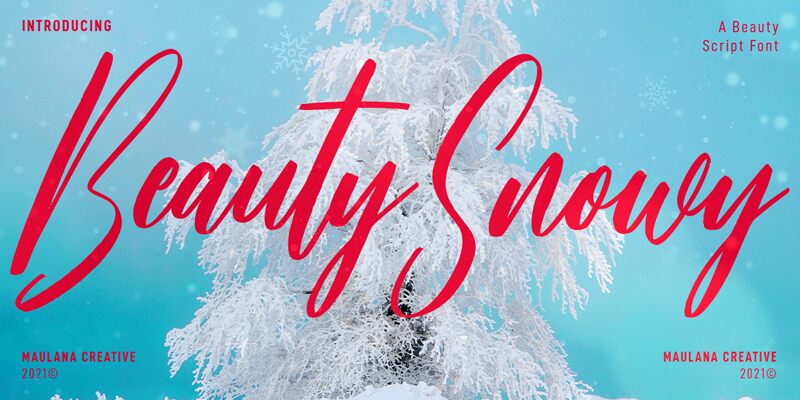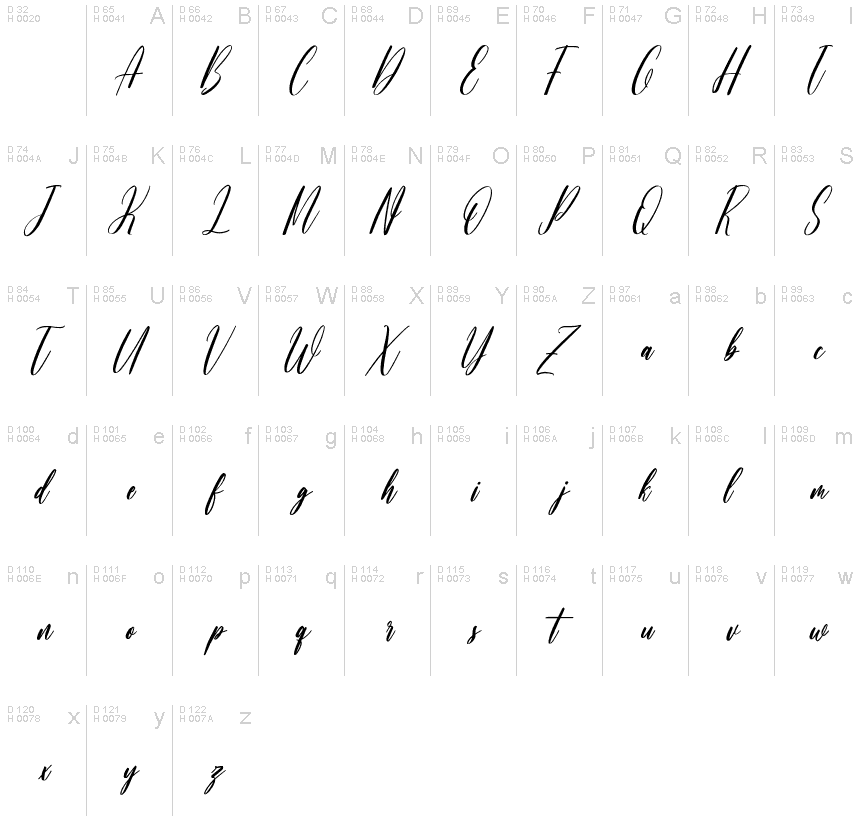
Beauty Snowy Free Regular
Beauty Snowy, the semi-light calligraphy font designed by Maulana Creative, exudes an air of elegance and sophistication. Its extra-condensed width adds a touch of modernity to its traditional calligraphic style, making it suitable for a variety of projects. Use it to create stunning wedding invitations, branding materials for luxury products, or even social media graphics that need a touch of class. The delicate curves and graceful strokes of Beauty Snowy will bring your designs to life with its effortless charm and timeless appeal. Make a statement with this exquisite typeface that's sure to leave a lasting impression.